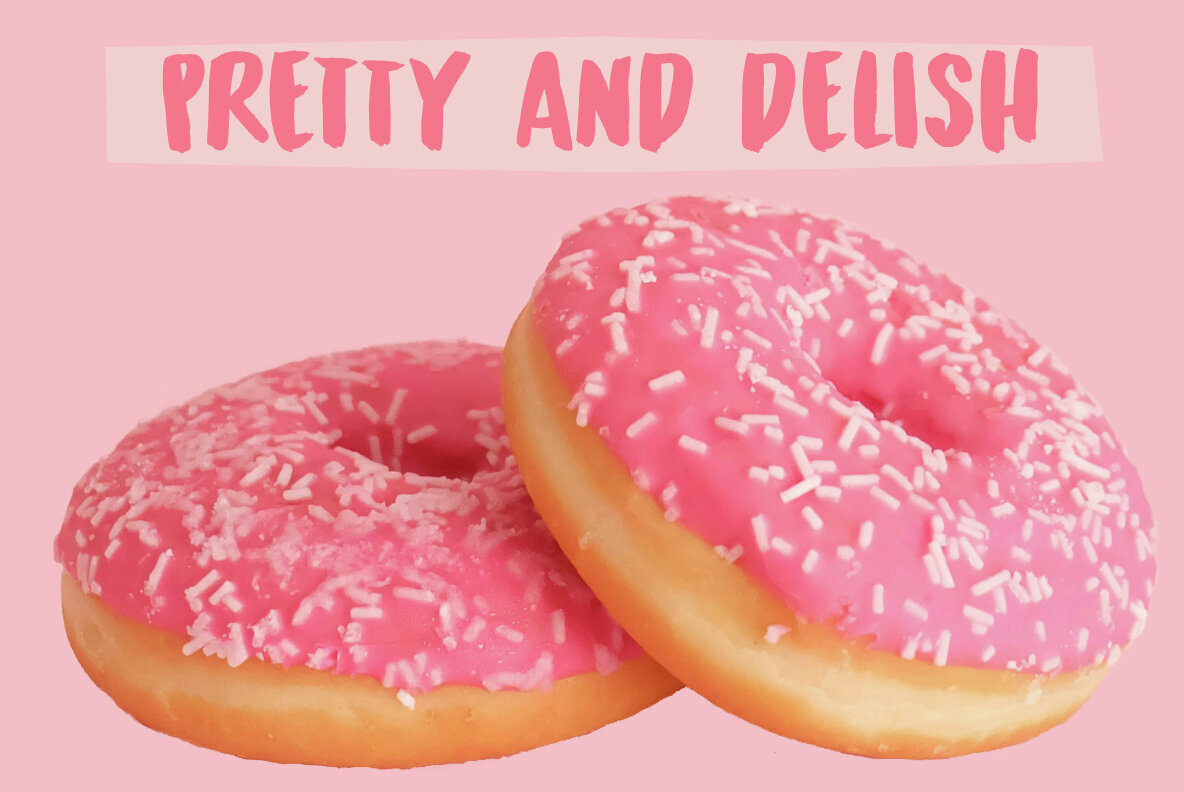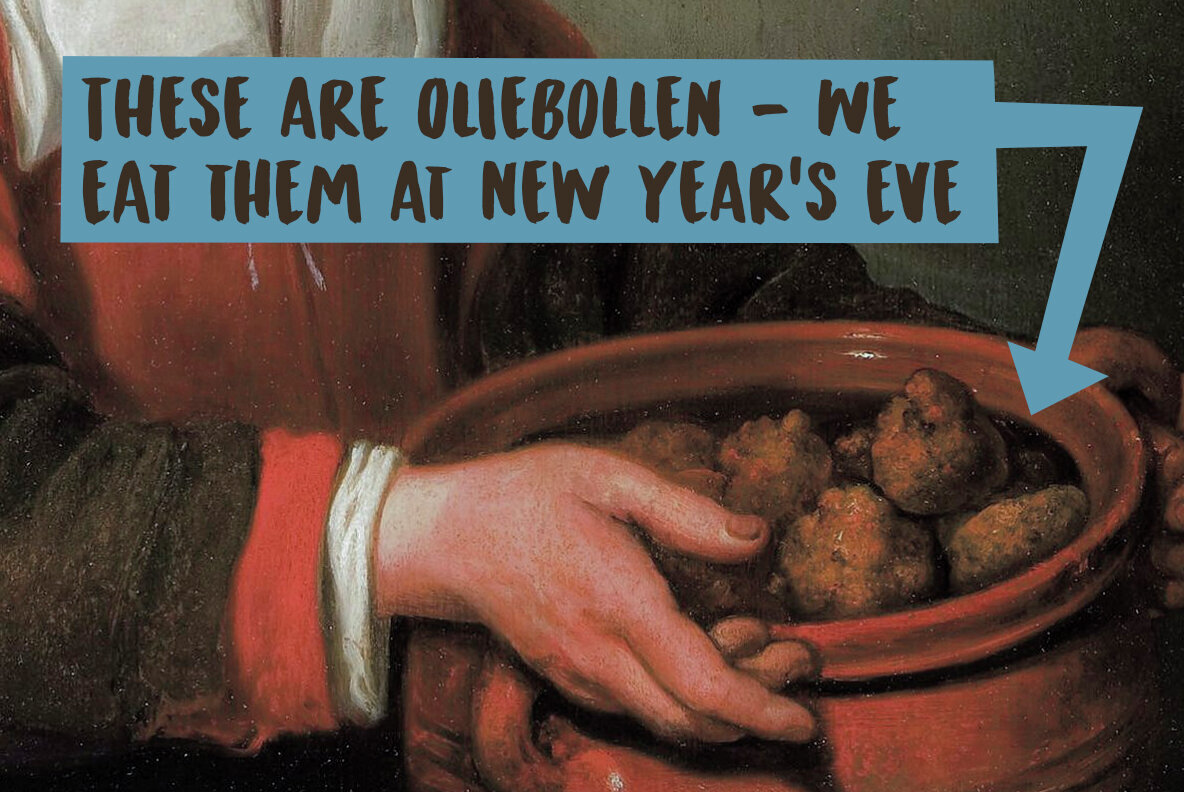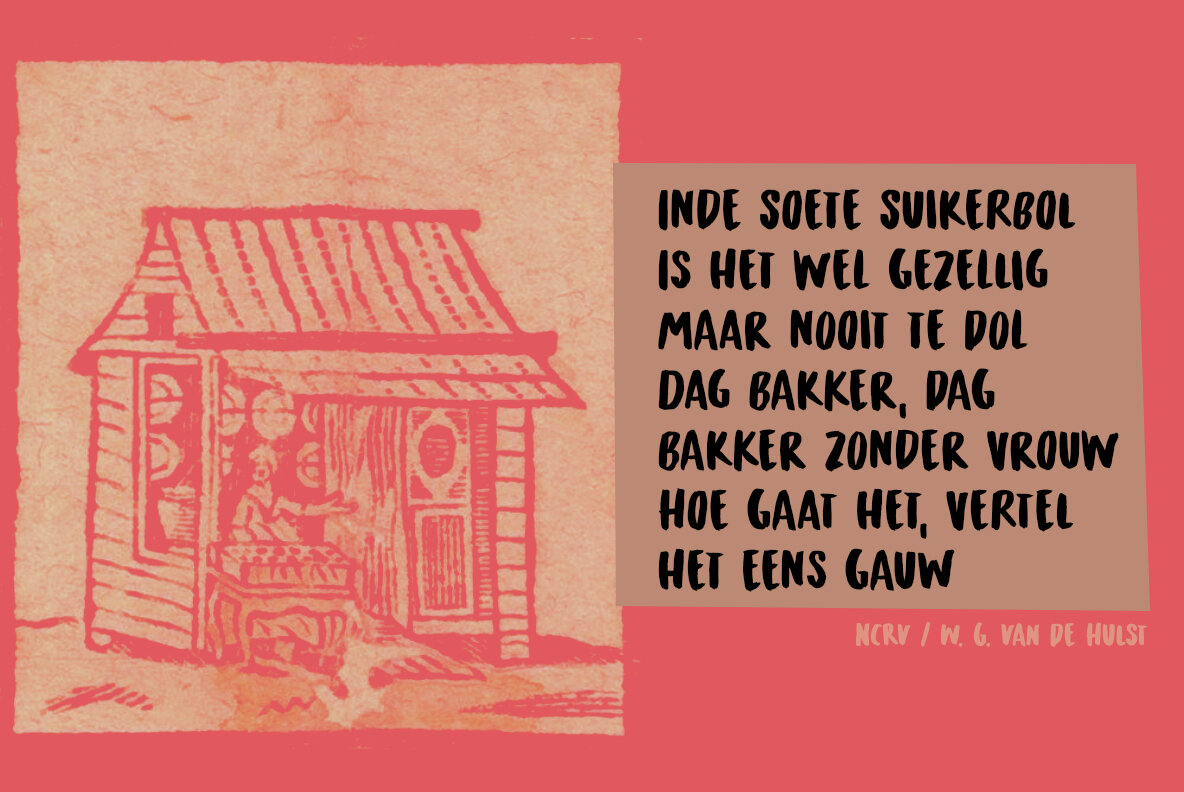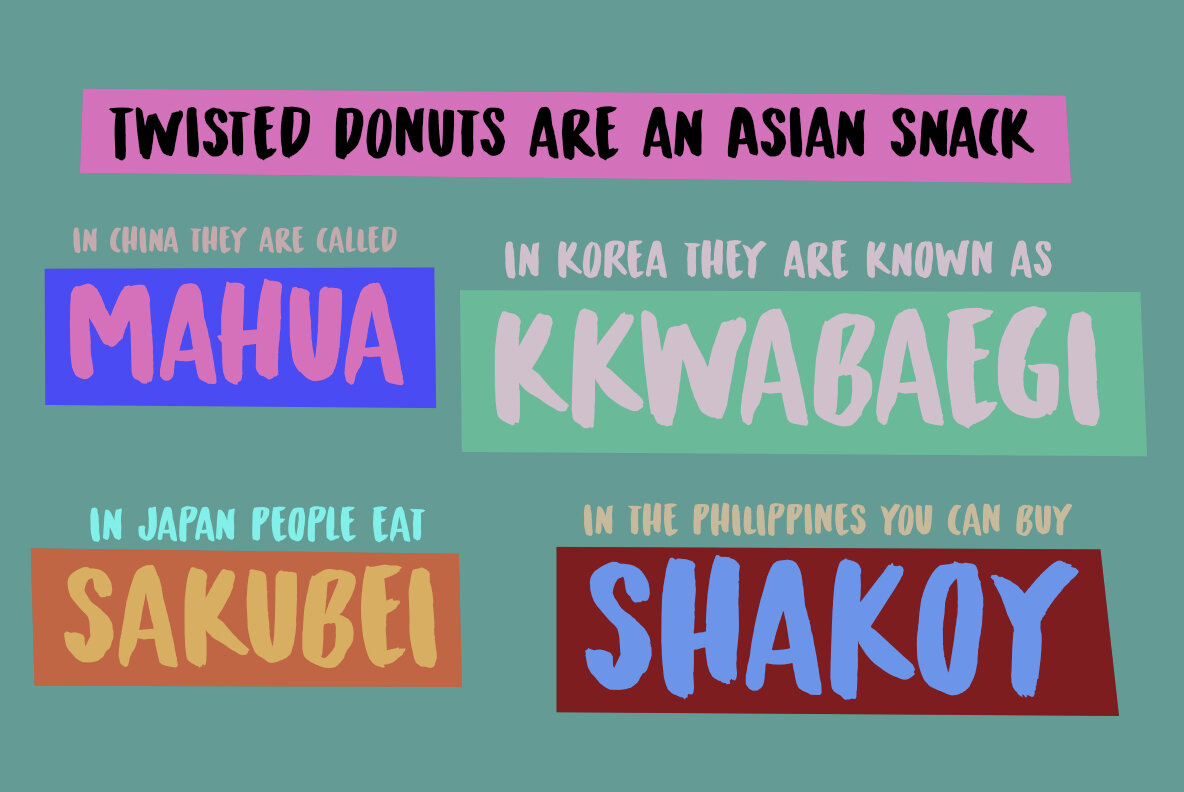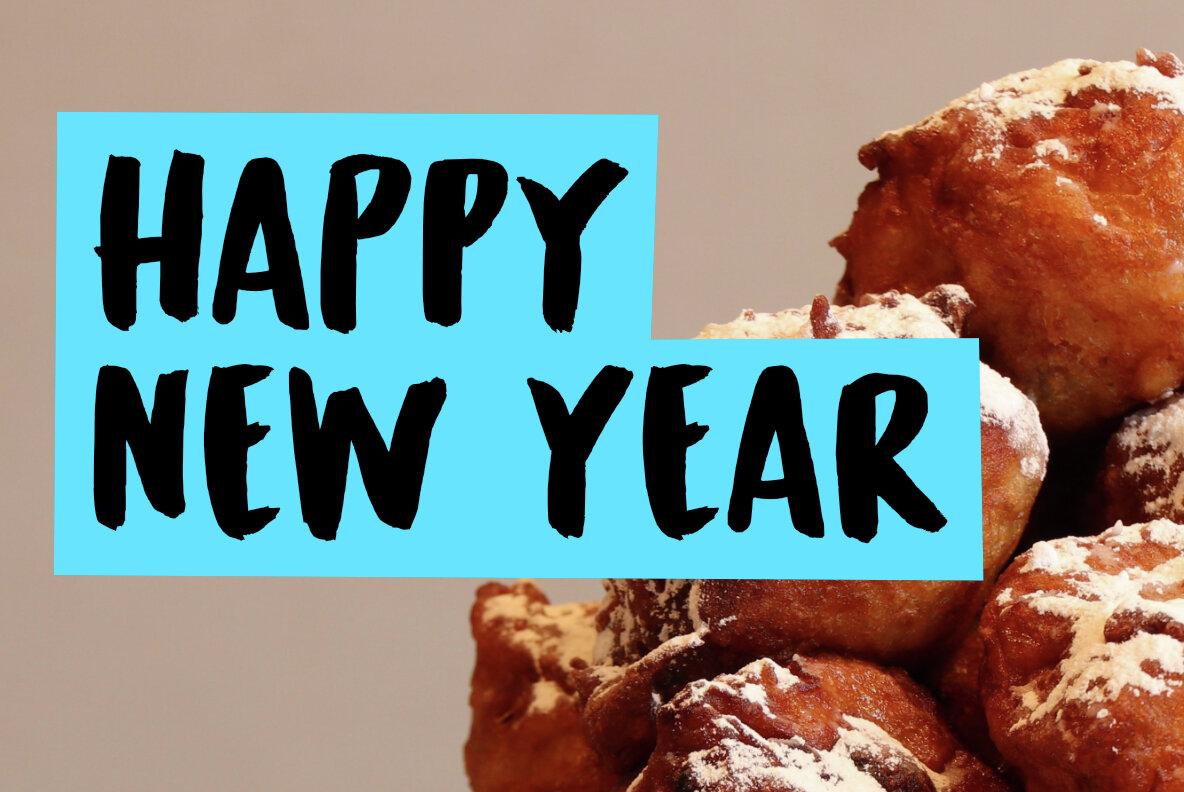
Twisted Donut Font
Twisted Donut Regular
Twisted Donut Italic
Twisted Donut is a unique and delightful font inspired by the designer's love for the popular Japanese snack. Crafted with a horsehair brush using Chinese ink, this font offers an organic and lively appearance. It's perfect for projects that need a touch of whimsy and creativity.
Twisted Donut provides extensive language support, making it a versatile choice for a wide range of design applications. Additionally, it includes a set of alternate characters, allowing for diverse and creative typographic expressions. Inject some fun and personality into your work with Twisted Donut, a font that stands out for its uniqueness and charm.